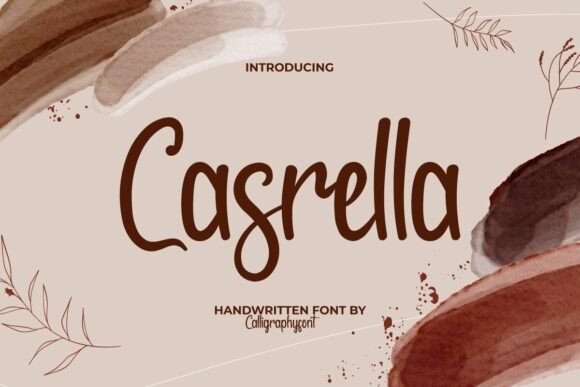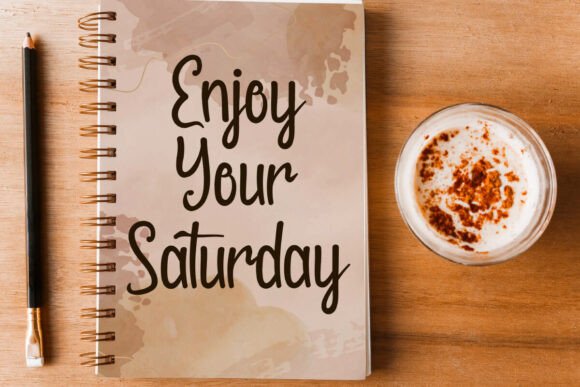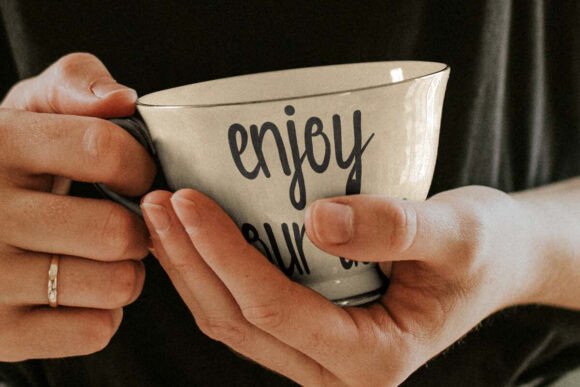
Casrella Font
About the Casrella Font
Meet Casrella Font, a stunning font that brings a touch of elegance and professionalism to any design. Casrella is a lovely unique casual handwritten font. The wave lines in this font flow naturally to produce adorable characters. It will be good to complement any project design, such as brand image, brochure, cover, custom design, flyer, invitation, label, marketing material, menu, poster, screen print, signage, stationery, title, website page, and many more!
Casrella Font Usage Examples